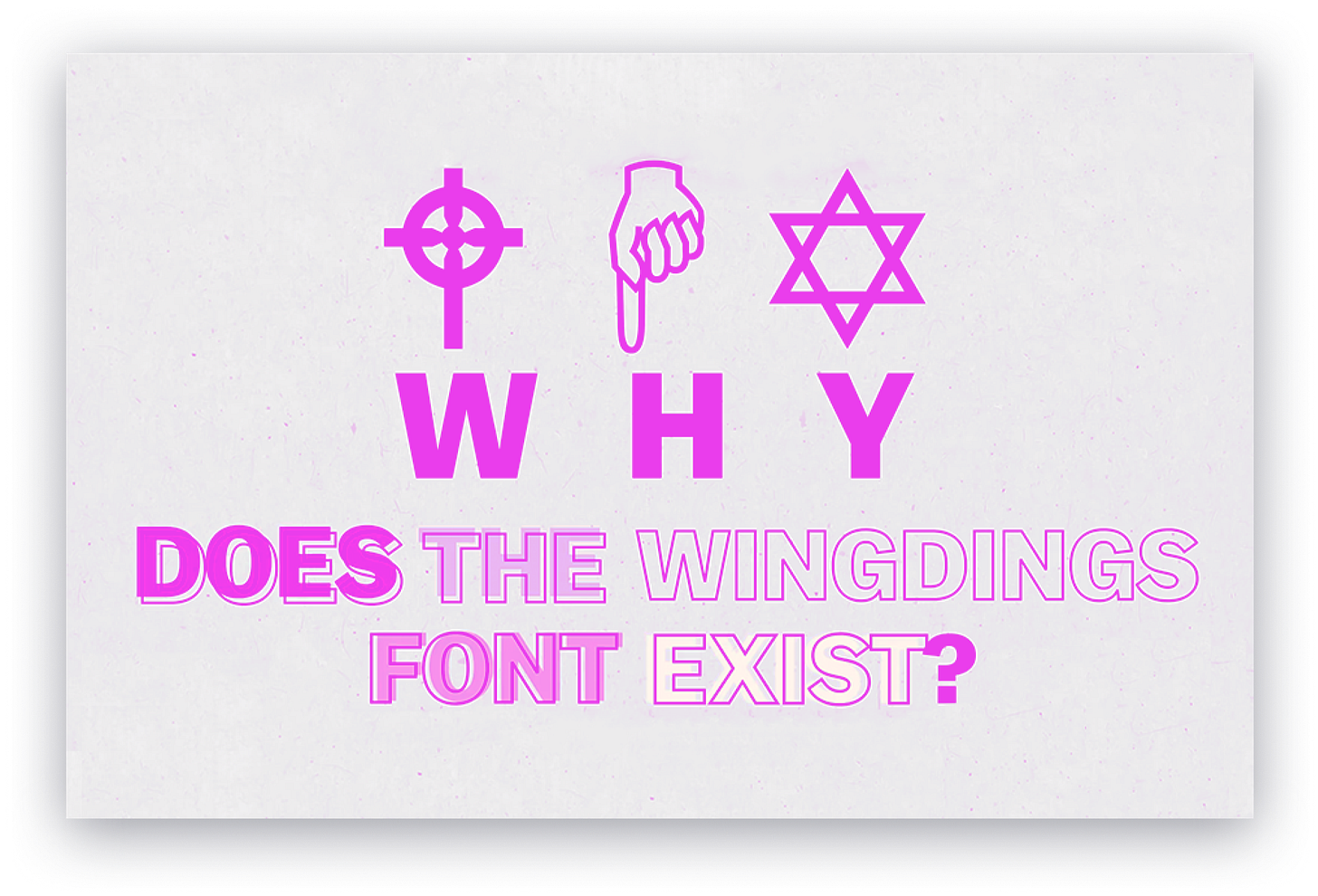
π€ Nerding Out π€
π Face of the Week π
π© Speaking of Useless... π©
WINGDINGS.
WHY. ON. EARTH. DOES. THE. WINGDINGS. FONT. EXIST? And what even are dingbats? The font made entirely out of symbols.
As a means of writing sentences, Wingdings fails β but that was never its purpose. It was created to be used as a unique tool for the pre-internet era. Akin to emojis, but with even more utility. Check out this great video by Vox.